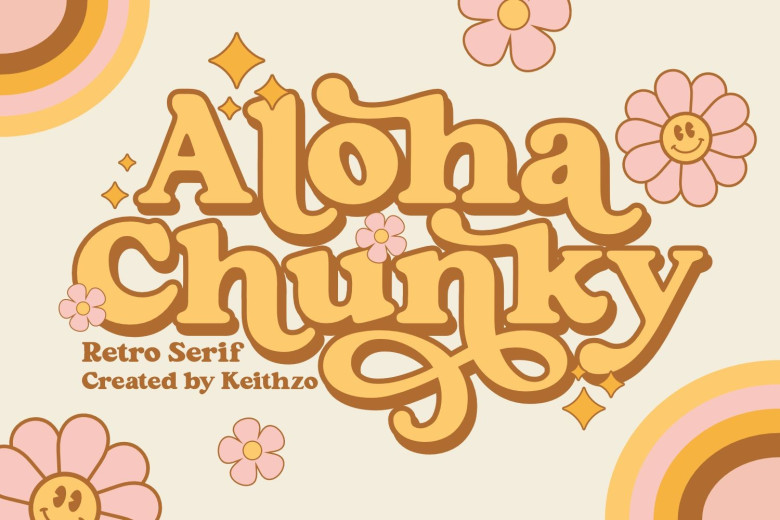
Aloha Chunky Font
Aloha Chunky is an iconic 1970s-inspired retro serif font. Featuring thick serifs and chunky letterforms reminiscent of vintage typefaces, Aloha Chunky can add character and nostalgia to any project with its playful aesthetic and retro charm. Perfect for album covers, posters or branding material! Aloha Chunky adds personality and nostalgia for any creative venture!
Aloha Chunky Serif Font